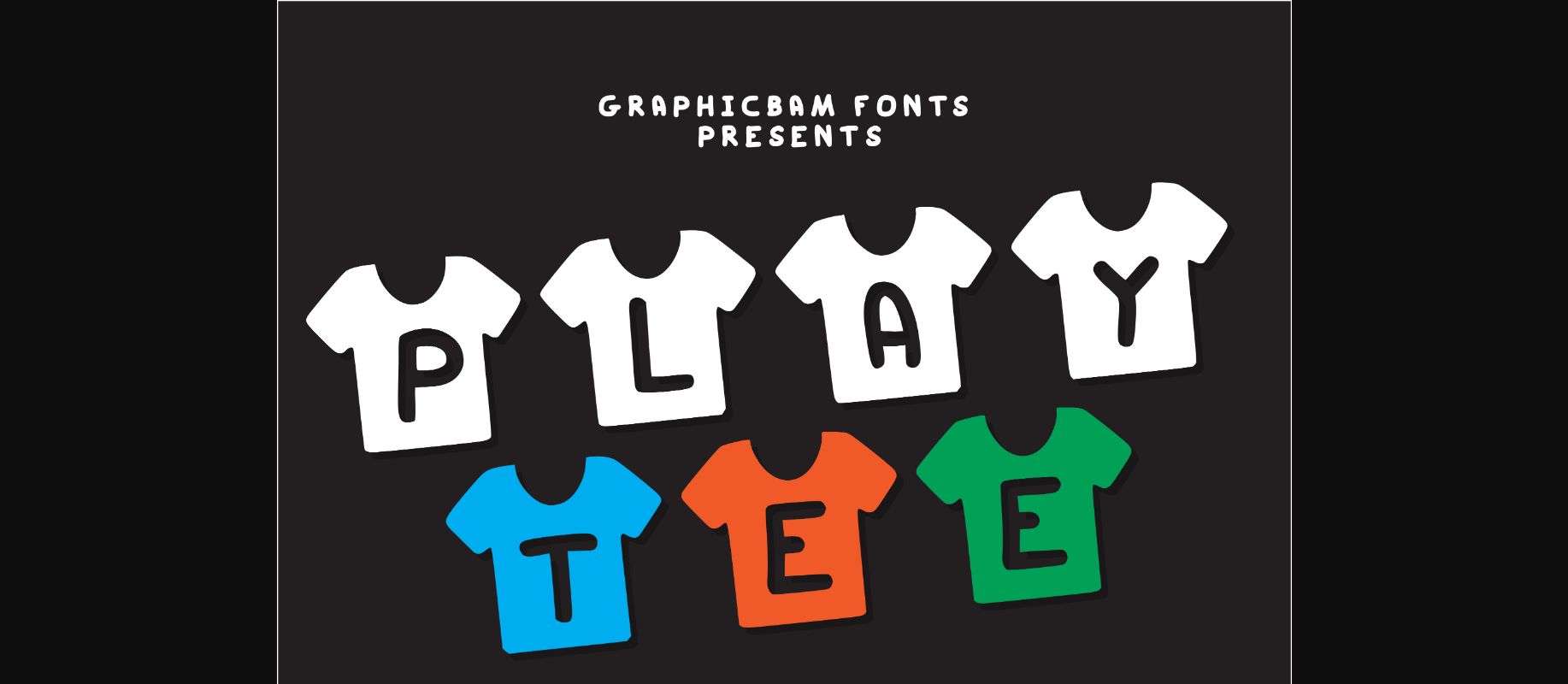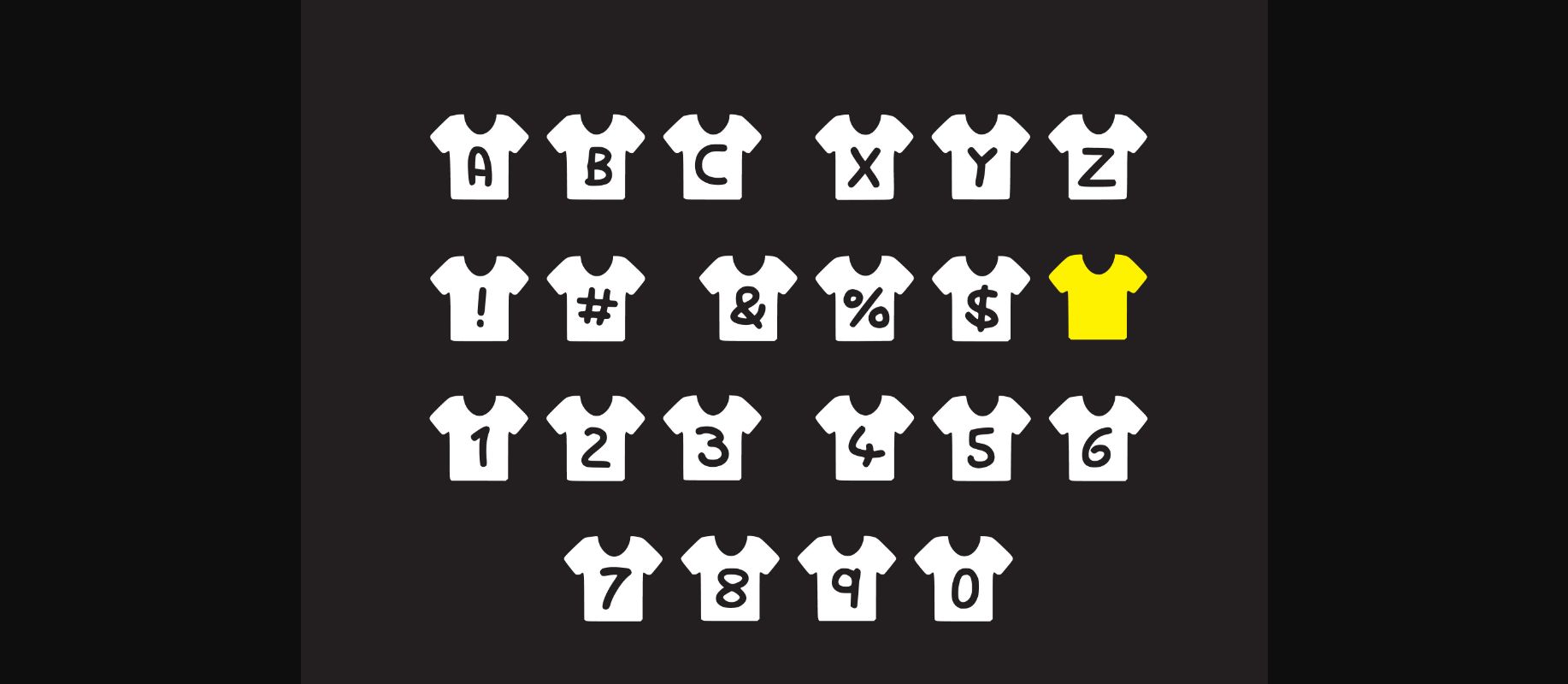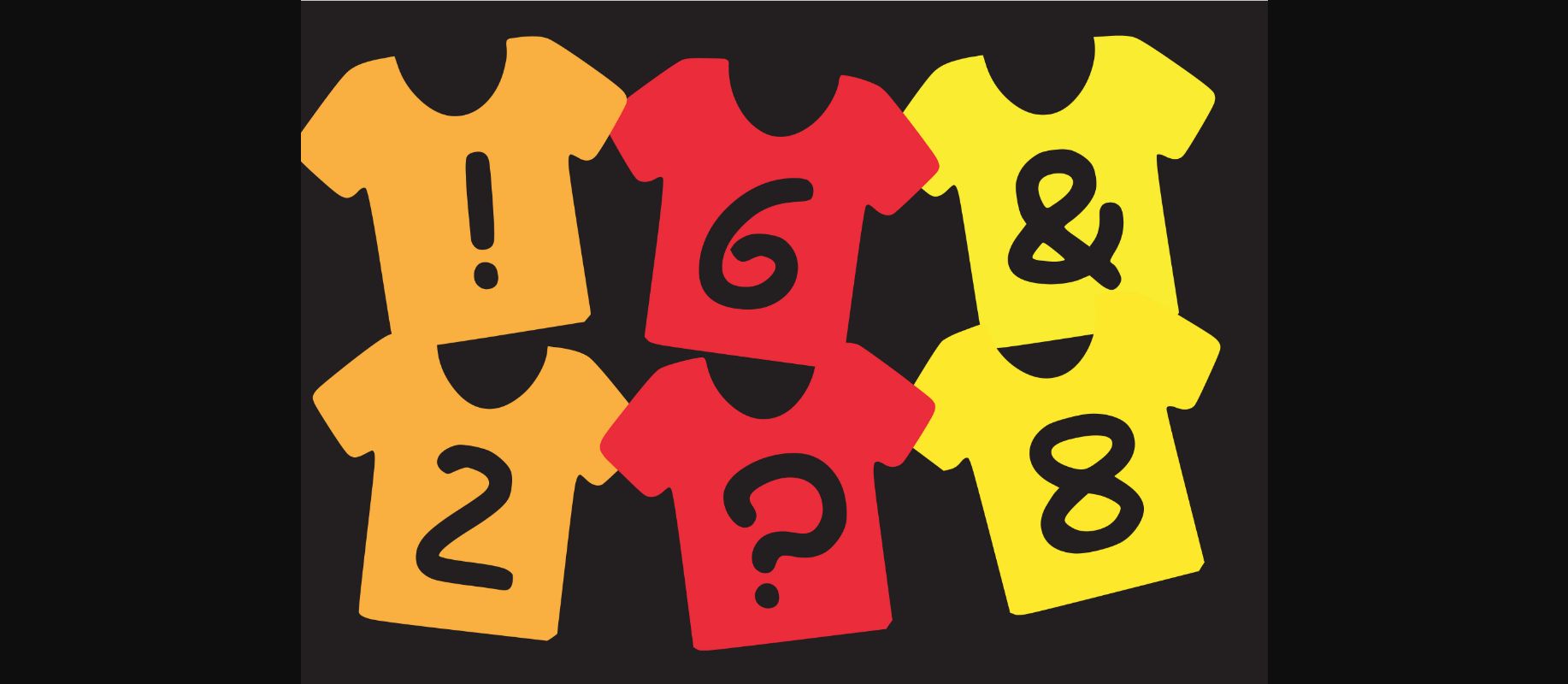
About Play Tee Font
Play Tee is a lovely decorative font, featuring a set of t-shirts with a playful, child-like vibe. It embodies trendiness and authenticity and is the perfect choice for any children activity or school project.